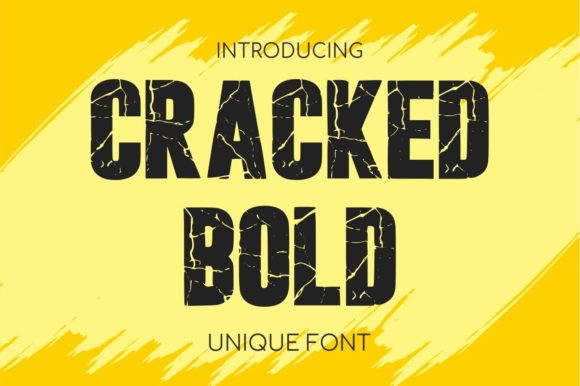
Introducing Cracked Bold Font, the ultimate choice for those seeking the perfect font to captivate and mesmerize their audience. Created by Riki.studio, this thick lettered and assertive display font is here to elevate your designs and make a lasting impression.
With its strong and impactful appearance, Cracked Bold Font effortlessly conveys an aesthetic meaning that resonates with your target audience. Its boldness commands attention, ensuring that your message is delivered with the utmost clarity and conviction.
Crafted with meticulous attention to detail, this font guarantees ease of readability, making it ideal for a wide range of applications. Whether you're designing exquisite skin care labels, engaging digital artwork, or compelling presentations, Cracked Bold Font is the perfect companion.
Imagine captivating your audience with a font that exudes confidence and professionalism. Cracked Bold Font effortlessly adds a touch of sophistication to any project, instantly setting you apart from the competition. Its unique style and versatility make it suitable for various industries, ensuring that your message is delivered with utmost impact.
With Cracked Bold Font, you have the power to evoke emotions and create a lasting impression. Its captivating curves and bold strokes infuse your designs with vitality, leaving a lasting imprint on the minds of your audience. Let your creativity run wild as you explore the endless possibilities this font offers.
Embrace the power of Cracked Bold Font and watch as your designs come to life. Its uniqueness and versatility make it the go-to choice for professionals across the globe. Stand out from the crowd and showcase your creativity with a font that speaks volumes and leaves an indelible mark.
Don't settle for ordinary fonts when you can choose Cracked Bold Font, the best font for skin care labels. Its captivating appeal, ease of readability, and powerful presence will transform your designs into works of art. Take your projects to new heights and experience the magic of Cracked Bold Font today.